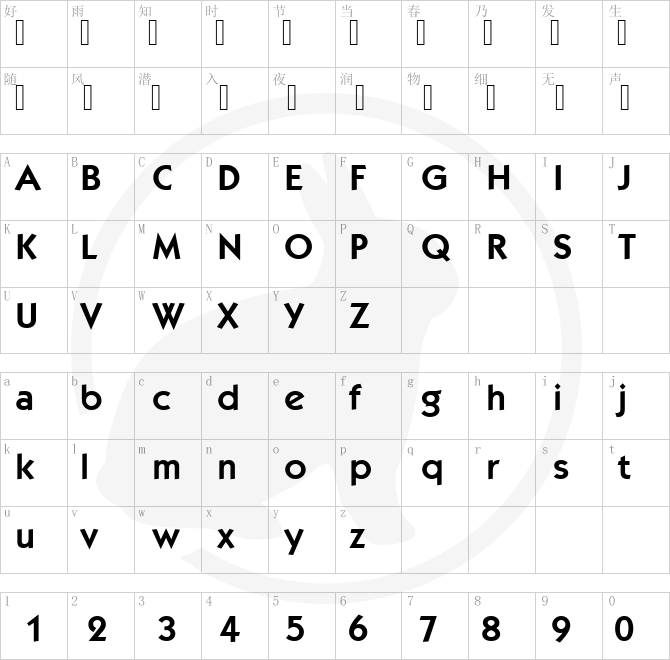
KabelItcTEEDem.ttf is a very beautiful artistic font, KabelItcTEEDem.ttf is widely used in the design and printing of various books and pictures,KabelItcTEEDem.ttf has a strong visual impact,KabelItcTEEDem.ttf is a commonly used font in newspapers, magazines and books, and is used in posters, e-commerce Poster design, store design, logo design, font design and other fields.KabelItcTEEDem.